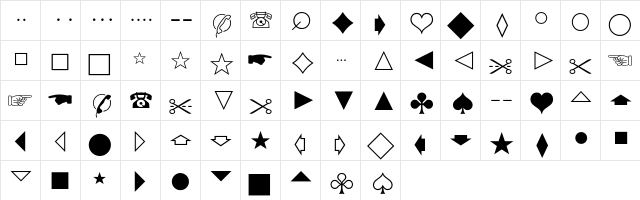
Newspaper Pi Regular
Design Context for Newspaper Pi Typeface
Newspaper Pi is a composed and adaptable typeface that performs quietly and consistently across a wide range of design contexts.